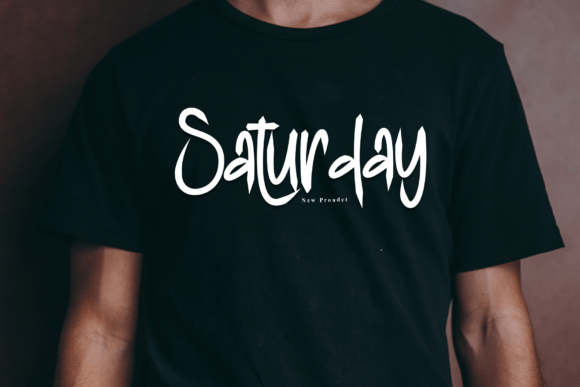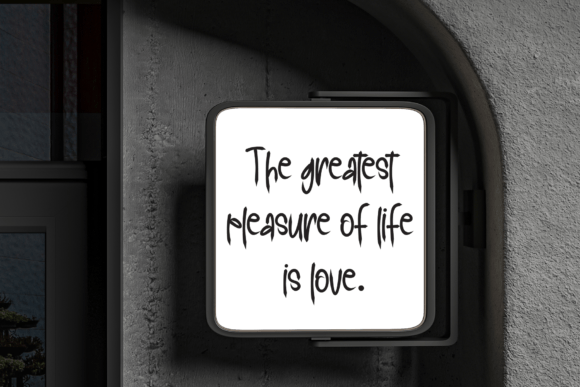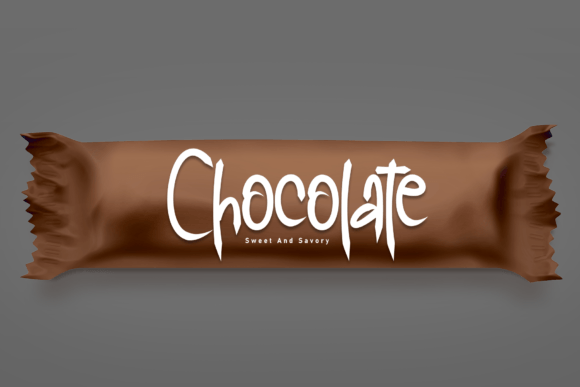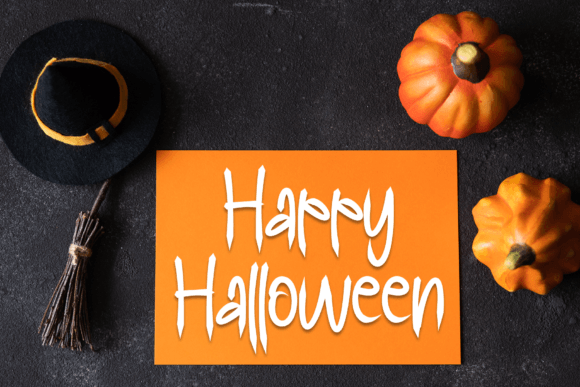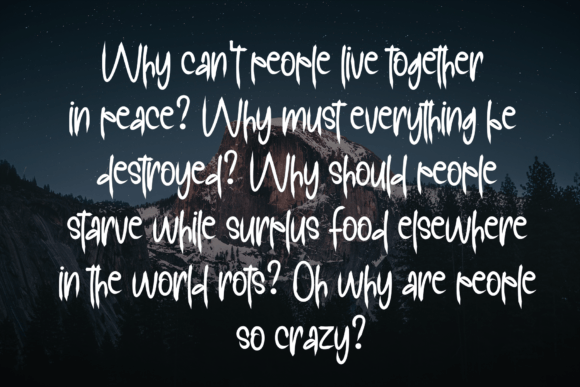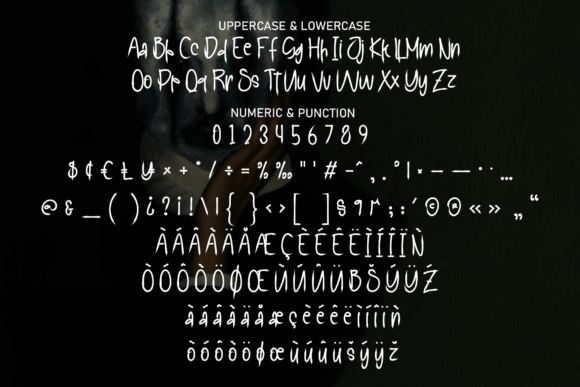
Introduction to Nightmare Kingsize Font
Have you ever been stuck in a creative rut, struggling to find the perfect design element to elevate your project? We’ve all been there, frantically searching for the right font to bring our vision to life. But what if I told you there’s a game-changing font that can add an instant wow factor to your designs?
Meet Nightmare Kingsize Font, a bold and sharp handwritten font that’s perfect for designers looking to create a powerful and eye-catching style. With its tall, pointy letters, this font is sure to grab attention and make your designs stand out from the crowd.
Key Features of Nightmare Kingsize Font
- High-quality, bold and gothic design perfect for a creative project that requires a dramatic and intense atmosphere.
- Unique, hand-crafted design that sets it apart from other fonts in the same category.
- Perfect for use in a variety of creative projects, including horror-themed designs, gothic-inspired art, and more.
Honest Review: Nightmare Kingsize Font
I’ve had the chance to work with the Nightmare Kingsize Font for a creative project and I must say, it’s been a game-changer. This font is a great design resource for anyone looking to add a bold and edgy touch to their work. ✨ The high quality of the font is evident in its crisp lines and smooth texture.
One of the things I love about the Nightmare Kingsize Font is its versatility. It can be used for a wide range of applications, from web design to print materials. The transparent background feature is also a huge plus, allowing for seamless integration with any design.
- High quality and crisp lines
- Smooth texture and versatile design
- Not suitable for all design styles
To get the most out of the Nightmare Kingsize Font, experiment with different font sizes, styles, and colors to create unique and eye-catching designs. Use it to add a touch of sophistication or edginess to your creative project, depending on your design needs.
The Nightmare Kingsize Font is commonly used in graphic design, branding, and digital art. Its high-quality design makes it an ideal choice for creating posters, flyers, business cards, and other marketing materials.